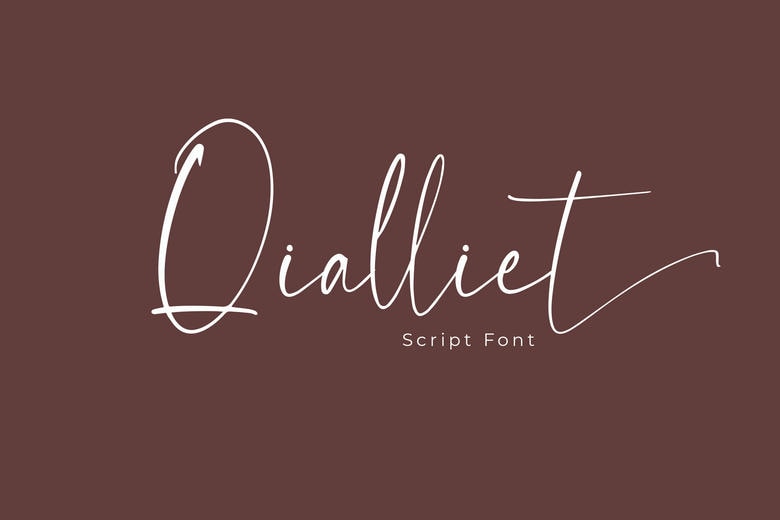
Qialliet Font
Qialliet is a script font categorised as minimalist, this is a clear font that doesn’t compromise on sophistication. You can cut their shape to give it a more professional look, but it’s great for logos, branding, invitations, and other projects. Qialliet provides better outcome to your designs and makes your products look stylish and classy.
Qialliet Script Font